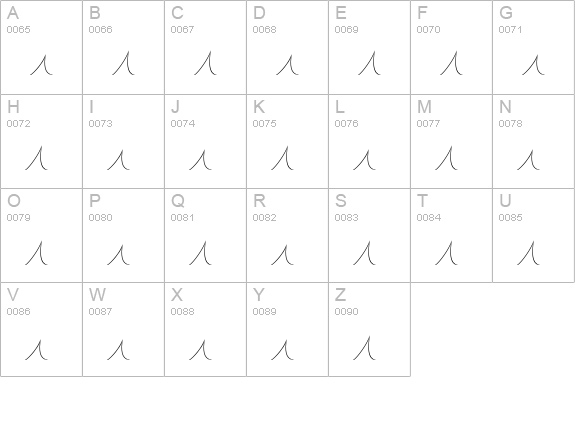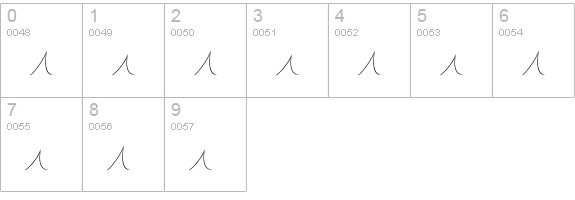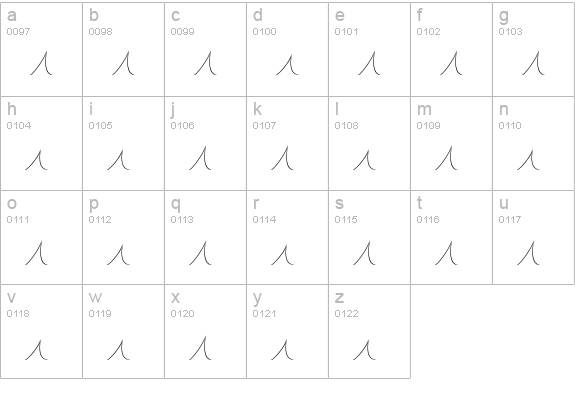
Squiggley Italic Font Details
Squiggley Italic is a distinctive, italic variant in the Squiggley typeface family \xE2\x80\x94 well suited to design and typography projects.
Introducing Squiggley Italic, a sensational font that effortlessly combines elegance and playfulness in every curve and stroke. This unique typeface is perfect for adding a touch of whimsy to your designs, whether you're crafting a logo, creating invitations, or designing eye-catching headlines. Squiggley Italic boasts a captivating charm with its beautifully exaggerated letterforms that dance across the page. Its slanted and curvaceous nature adds a sense of dynamism and movement to your words, making them truly come alive. This font is the epitome of creativity, making it a must-have for any designer or artist looking to make a bold statement. But what makes Squiggley Italic even more enticing is that it is freely available to download at FontsMarket.com. Yes, you read that right! You can enjoy the full potential of this stunning font without spending a penny. Whether you're a seasoned professional or just starting out on your creative journey, this free font offers an incredible opportunity to enhance your designs with its unique and eye-catching style. With Squiggley Italic, you have the power to transform your projects into works of art that are bound to captivate and inspire. Its versatility allows it to shine in a variety of contexts, from branding and packaging to posters and social media graphics. Let your imagination run wild and embrace the boundless possibilities that Squiggley Italic offers. So why wait? Take advantage of this incredible opportunity and download Squiggley Italic for free at FontsMarket.com today. Elevate your designs, stand out from the crowd, and let your creativity soar with this one-of-a-kind font that is sure to leave a lasting impression.